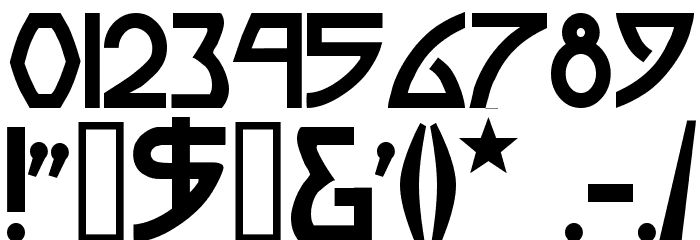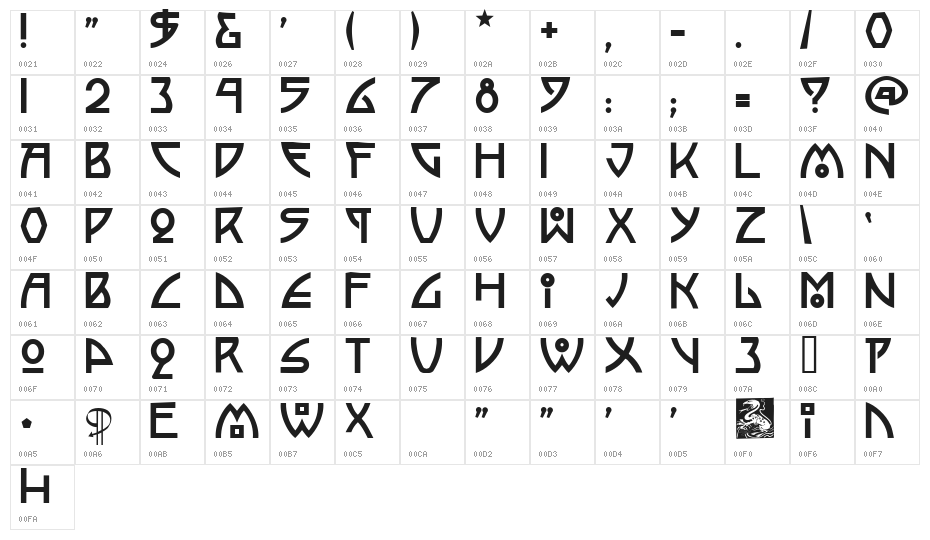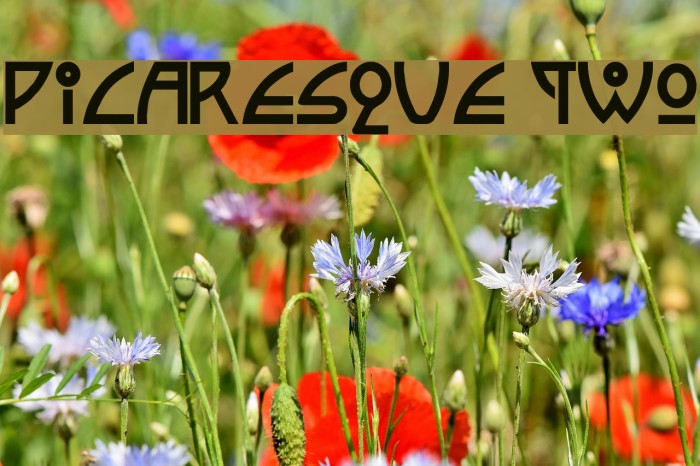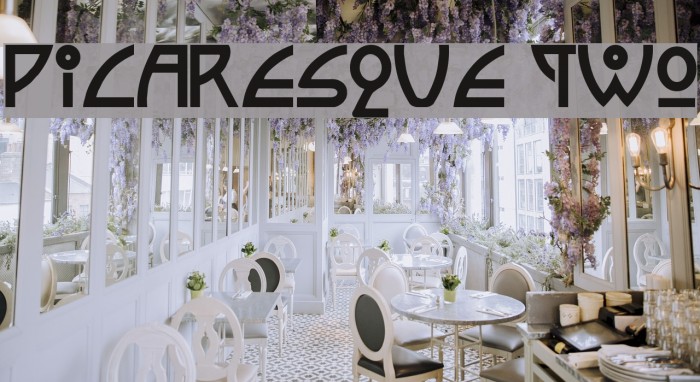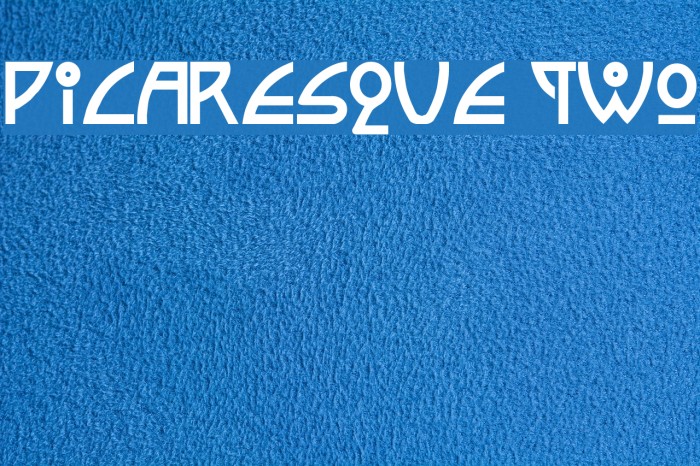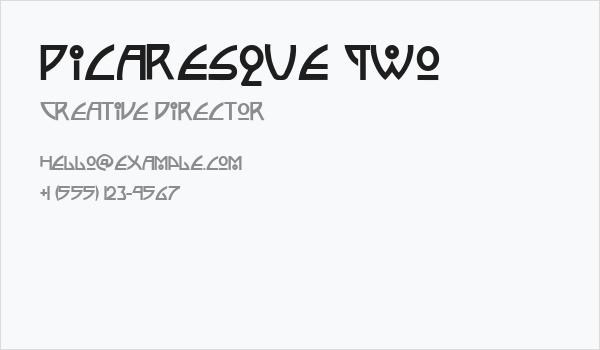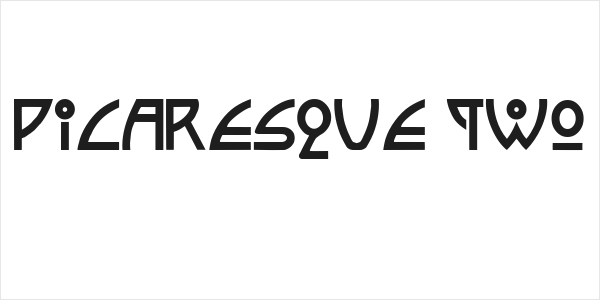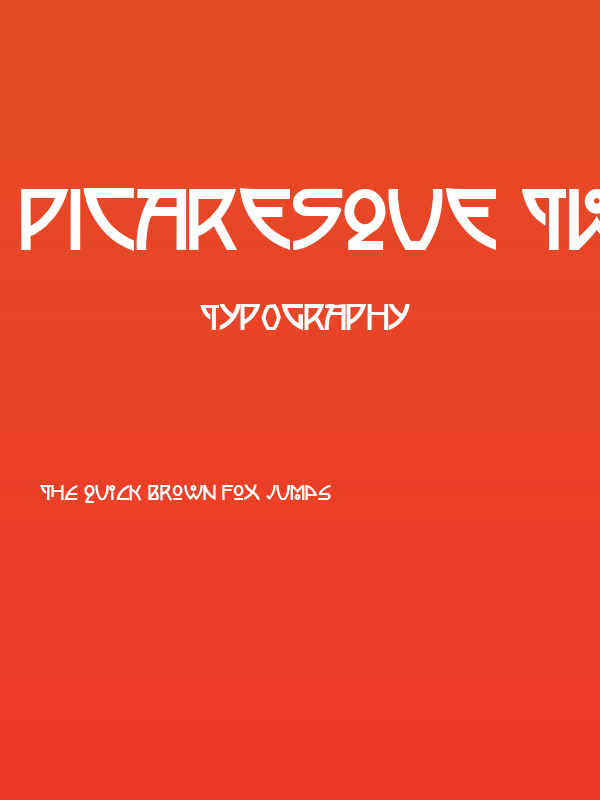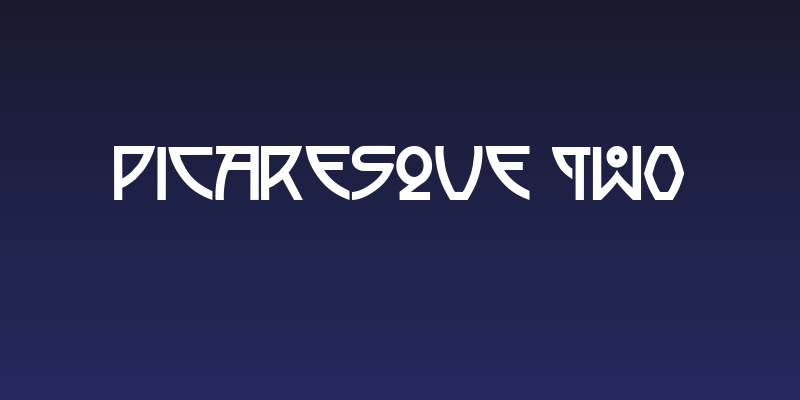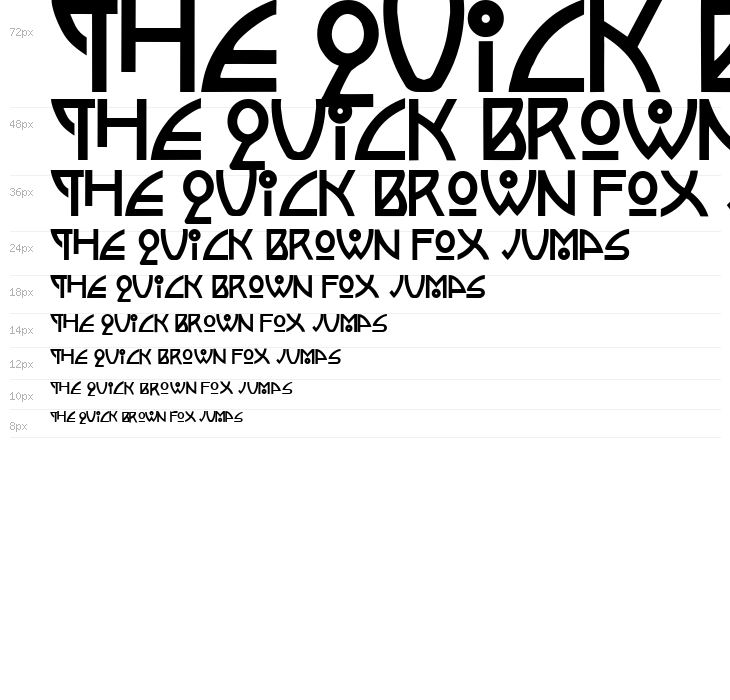
Picaresque Two Font
Picaresque Two Description
This font features a bold and geometric design with a unique, futuristic flair. The characters are constructed with sharp angles and distinct shapes, giving it a strong visual impact. The uppercase and lowercase letters maintain a consistent style, with some characters incorporating circular elements that add a playful touch. The numerals and special characters follow the same geometric theme, ensuring uniformity across all glyphs. This font's bold lines and angular forms make it stand out, making it ideal for attention-grabbing designs.
| Overall Style | Futuristic, Modern |
| Proposed Projects | Ideal for sci-fi themed designs, video game graphics, posters, and branding that requires a modern and edgy look. |